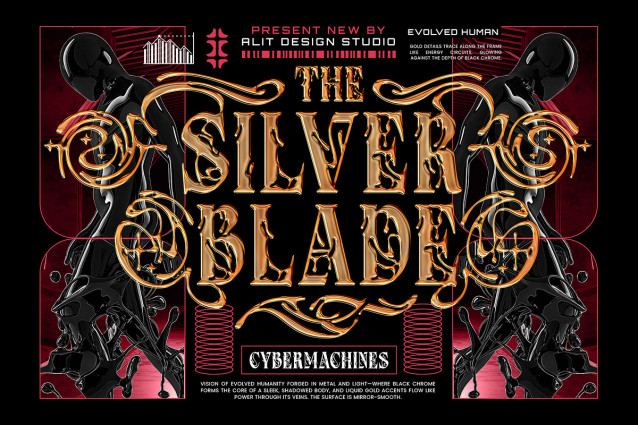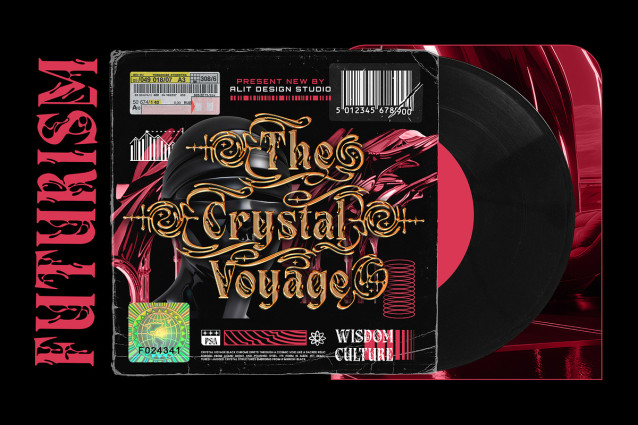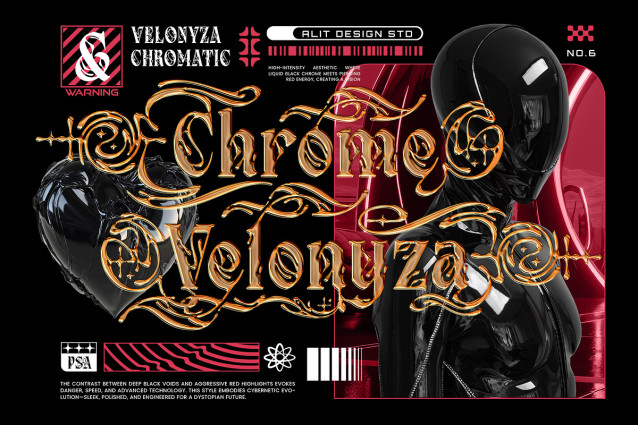
Chrome Revenant Font
Chrome Revenant Font is a bold serif typeface designed to make an unforgettable impact. Elevated by a sleek, molten aesthetic, every character feels like flowing liquid metal—capturing a perfect balance of dark elegance, high-fashion futurism, and beyond-emotionless perfection.
Designed for creators who want to push boundaries, this typeface is an absolute powerhouse. It comes loaded with an incredible 1042 glyphs, offering limitless possibilities for customization. With an extensive range of elaborate stylistic sets, alternates, and ligatures, you can easily transform standard text into a complex, custom-lettered masterpiece that looks like it was forged in a cursed void of advanced technology.